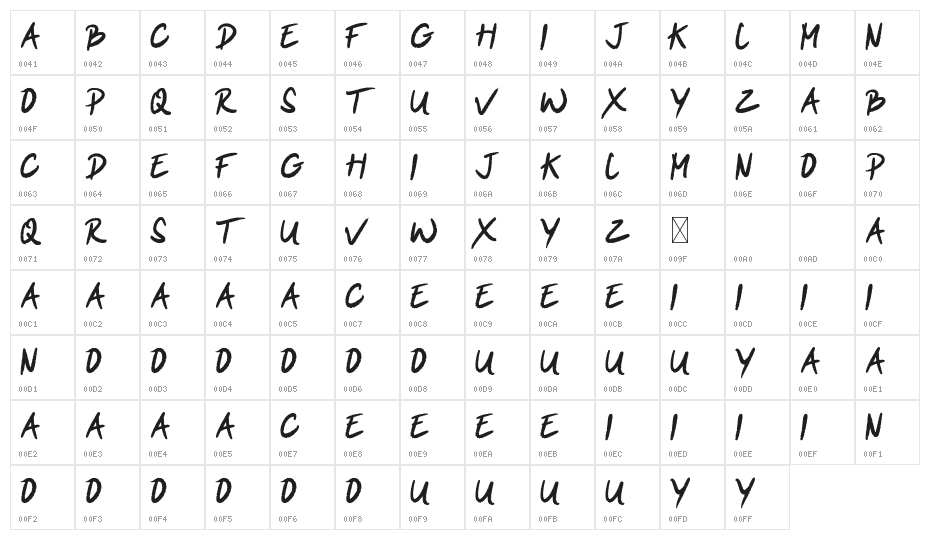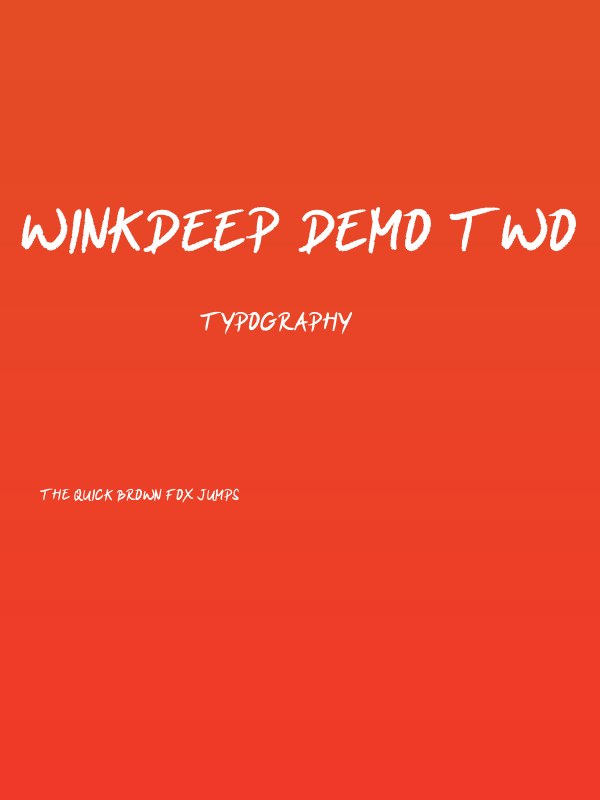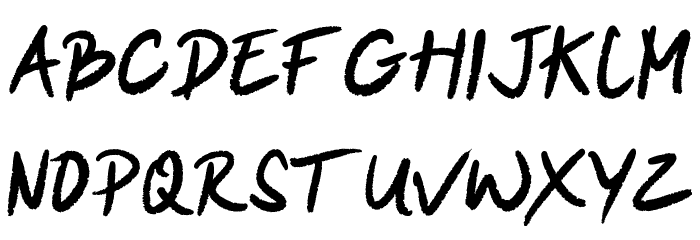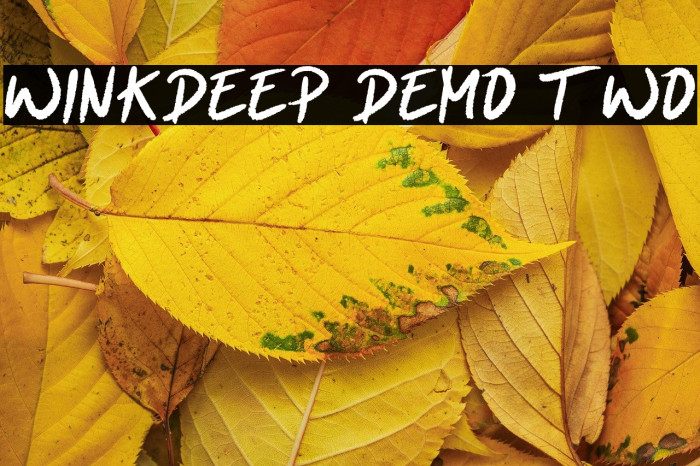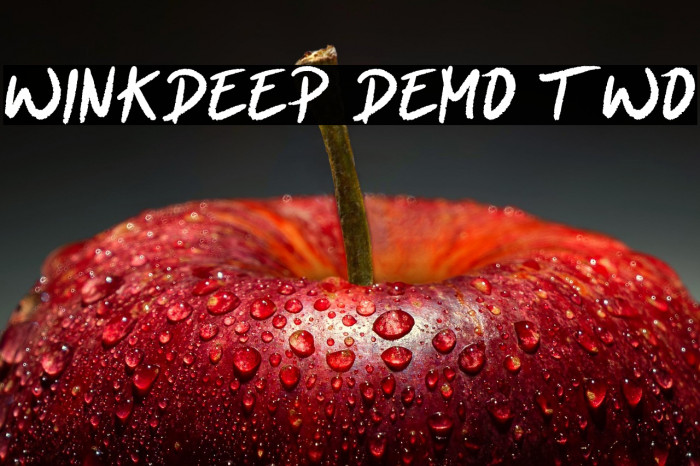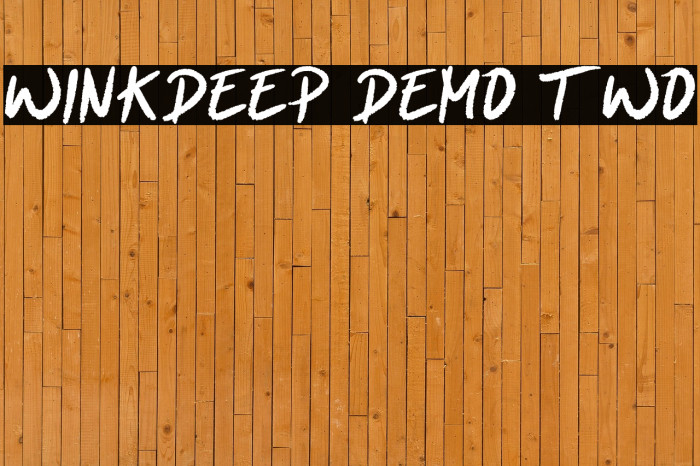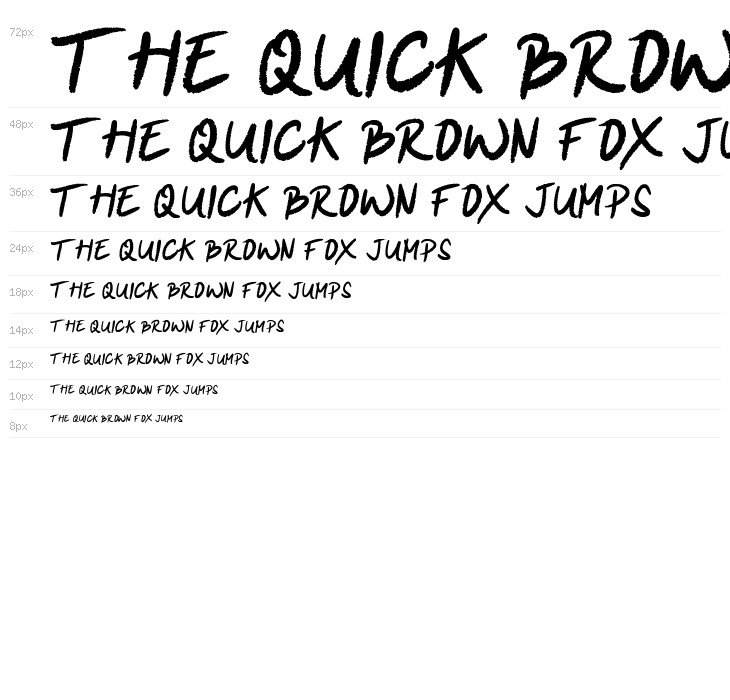
Winkdeep Demo Two Font
Winkdeep Demo Two Description
This font features a dynamic and energetic script style, characterized by its bold and expressive strokes. The letters are slightly slanted, giving a sense of movement and fluidity. The brush-like texture adds a handcrafted feel, making it ideal for projects that require a personal touch. The uppercase letters are consistent in height, while the lowercase letters maintain a harmonious flow. The overall appearance is casual yet stylish, suitable for a variety of creative applications.